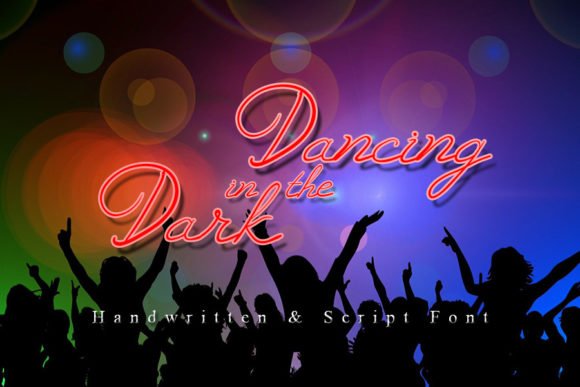
Introduction to Dancing in the Dark Font
Dancing in the Dark is a lovely and timeless handwritten font.
Key Features of Dancing in the Dark Font
Why Choose Dancing in the Dark Font?